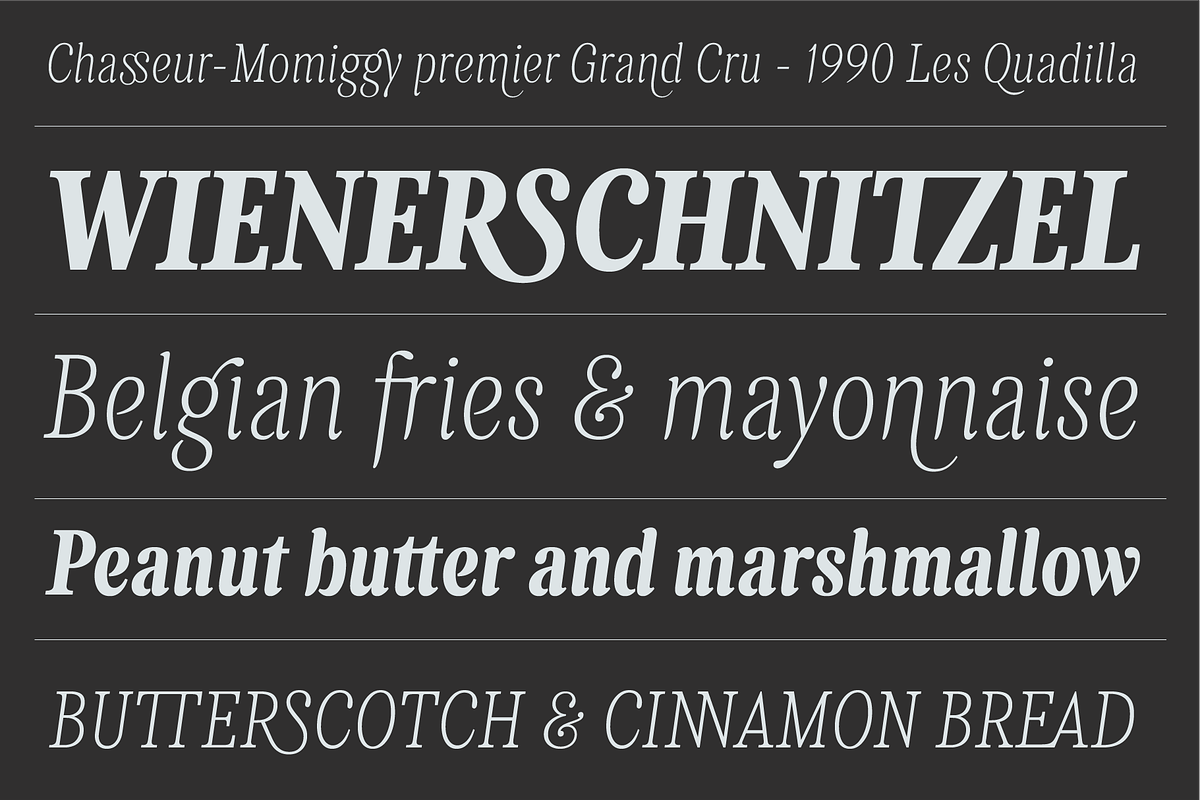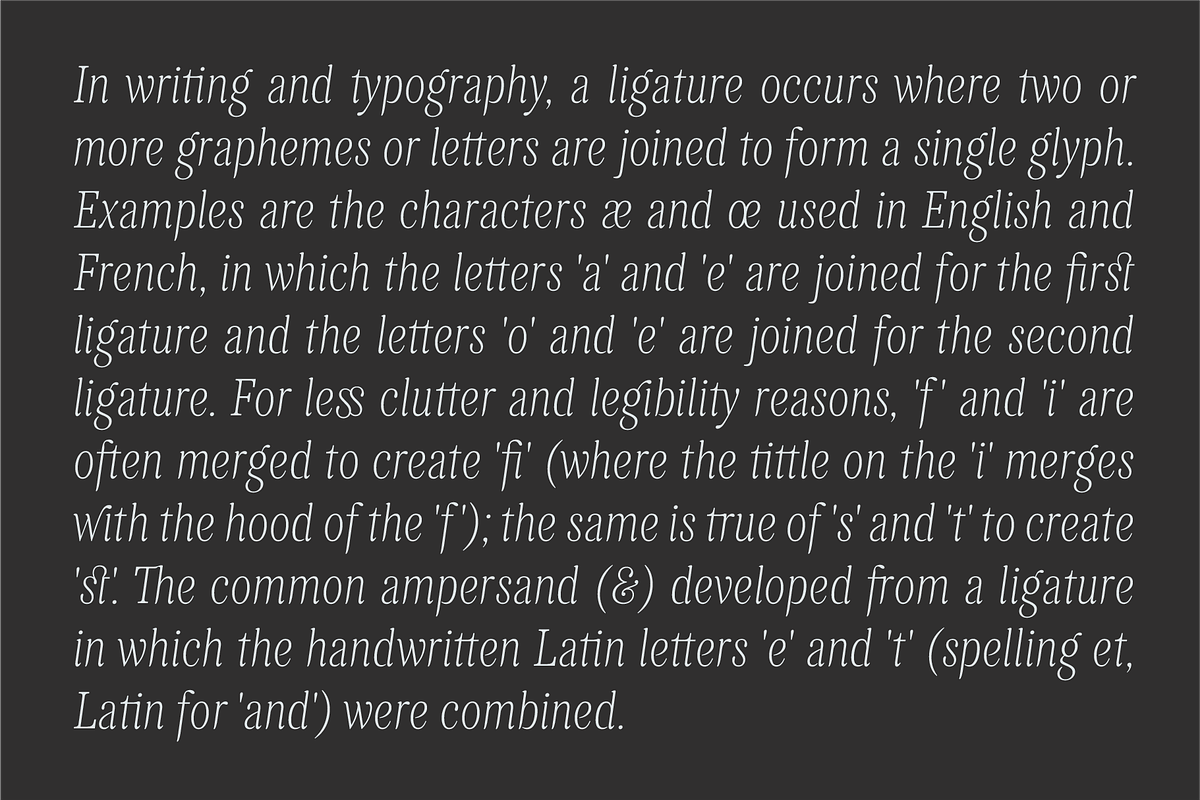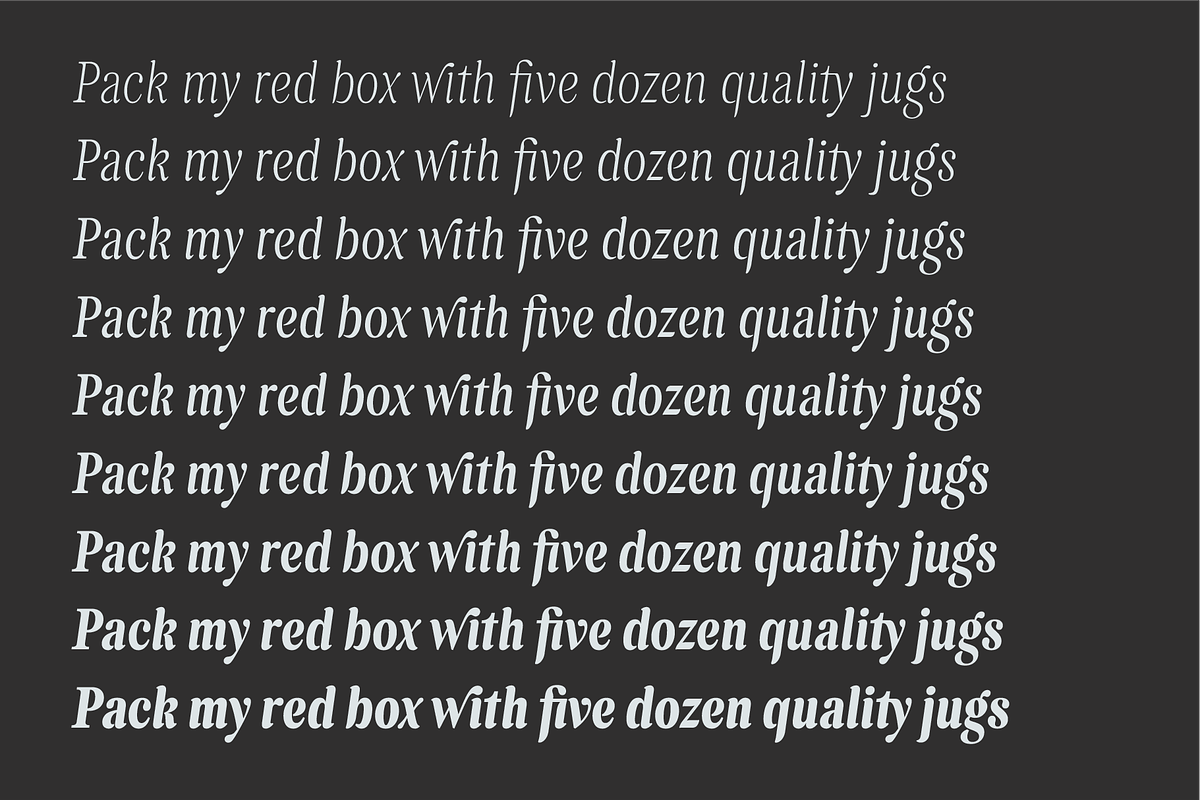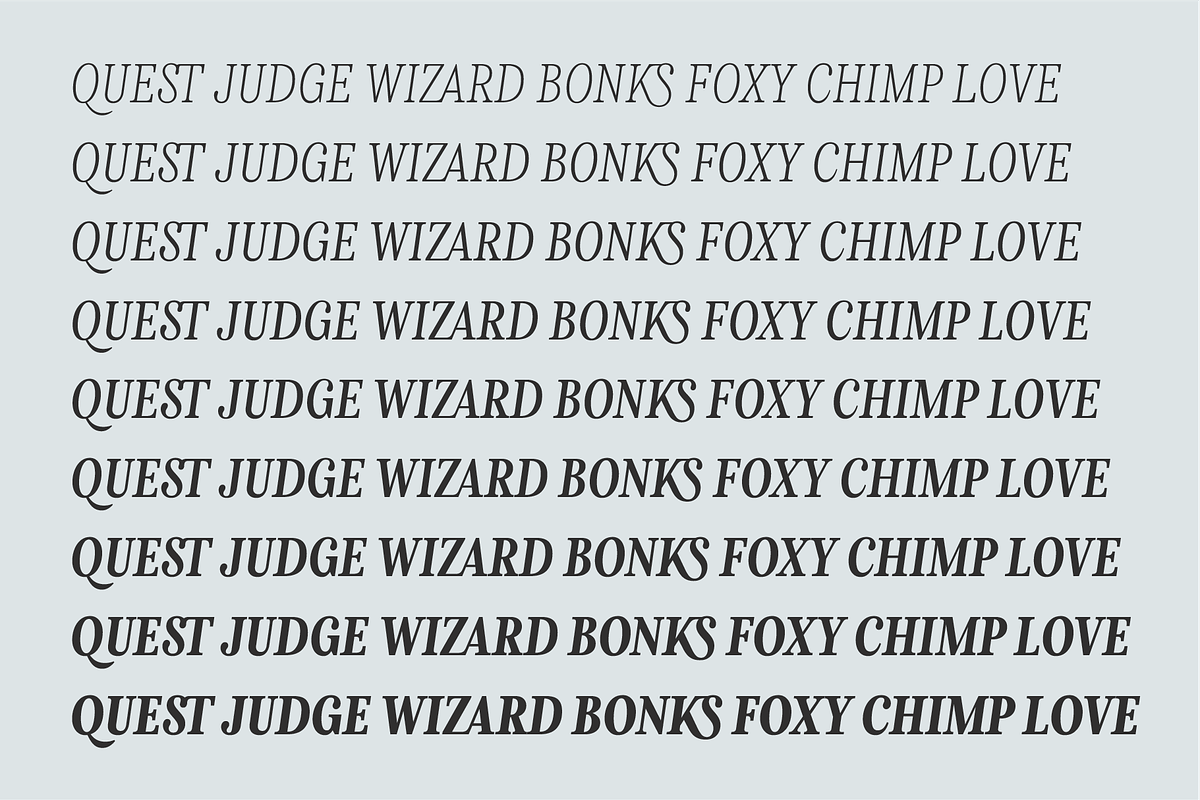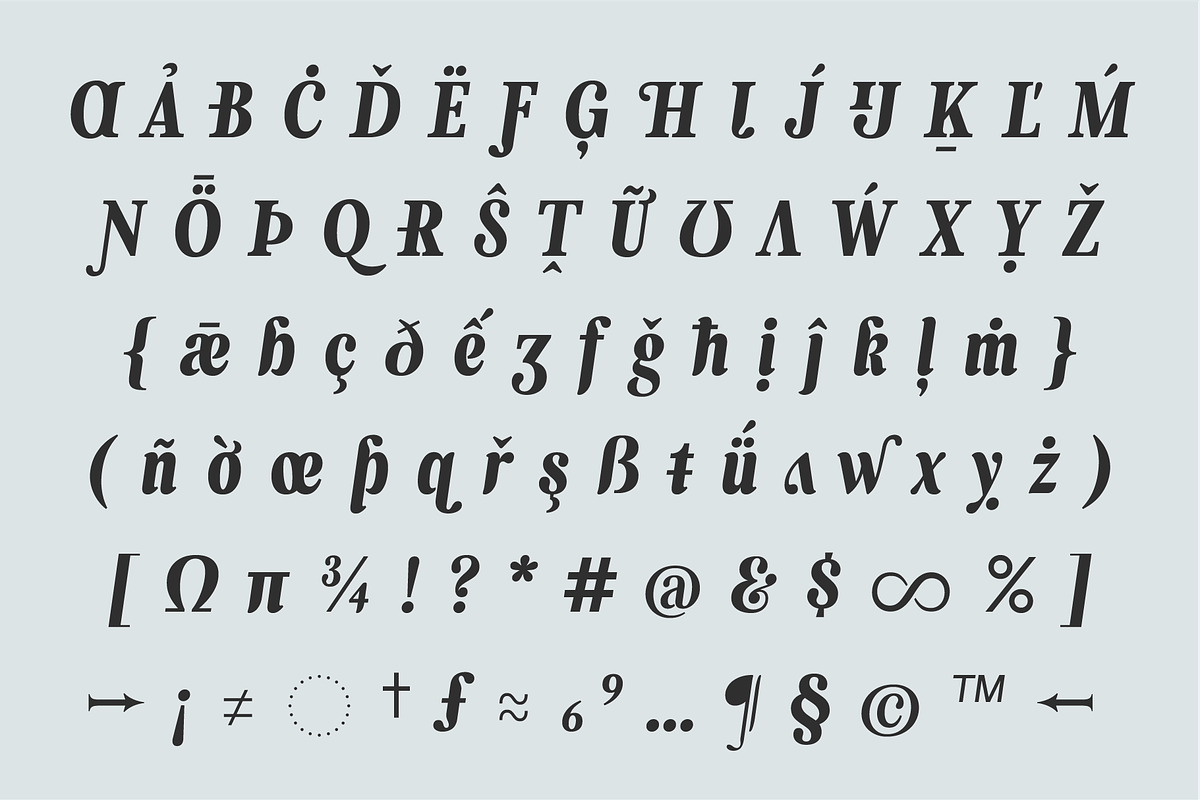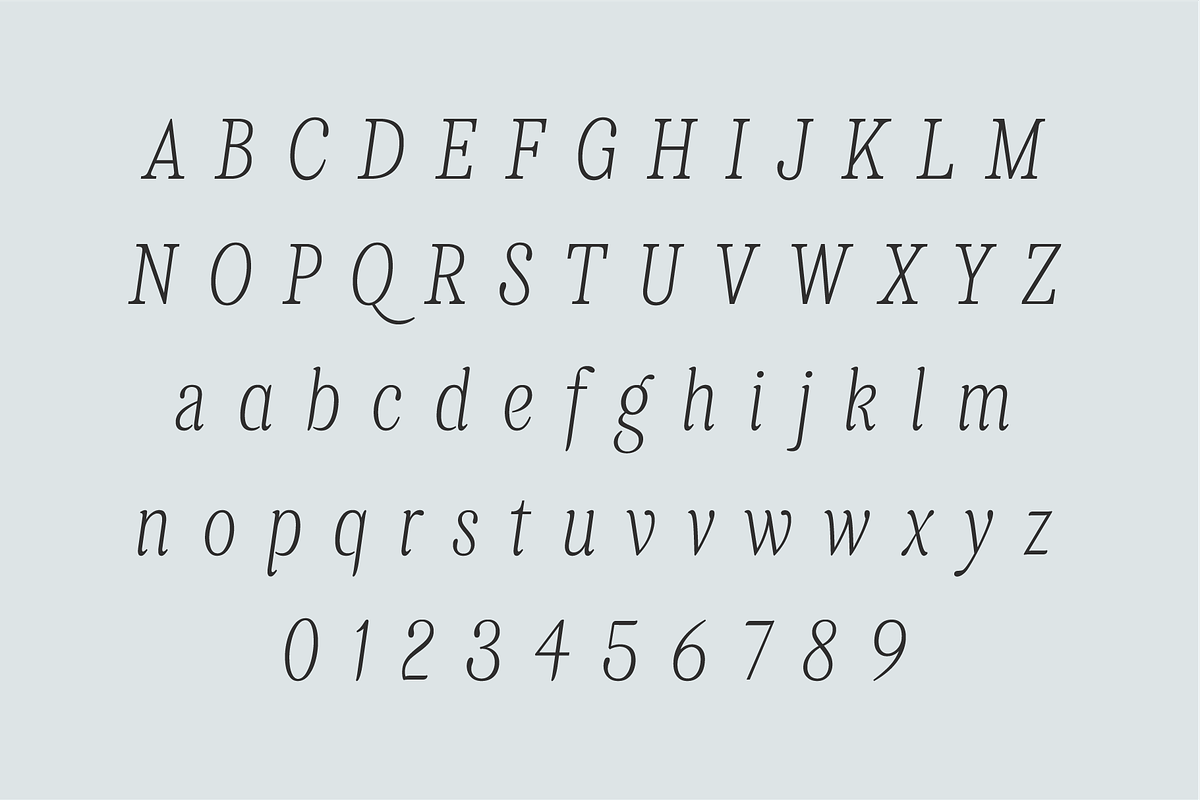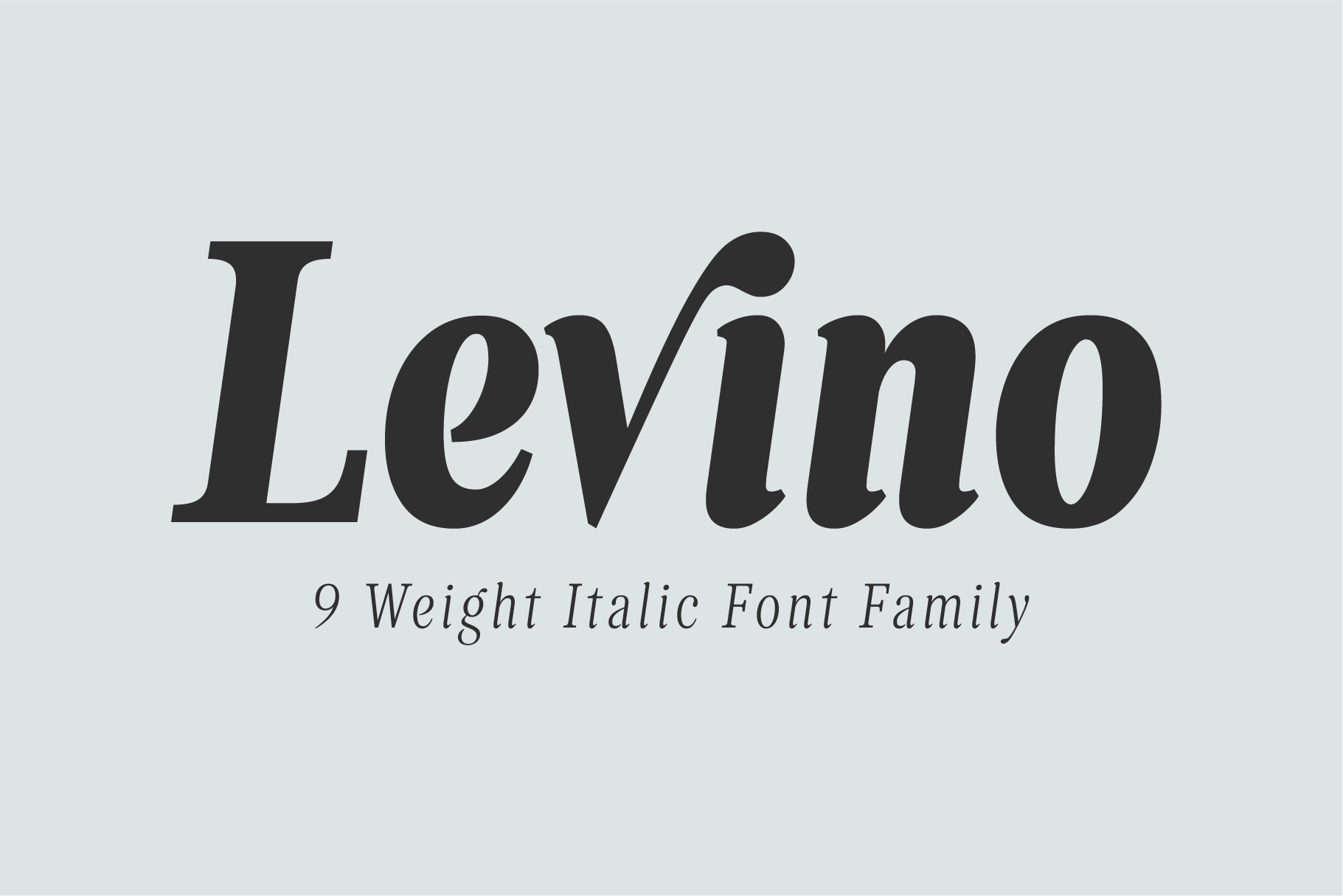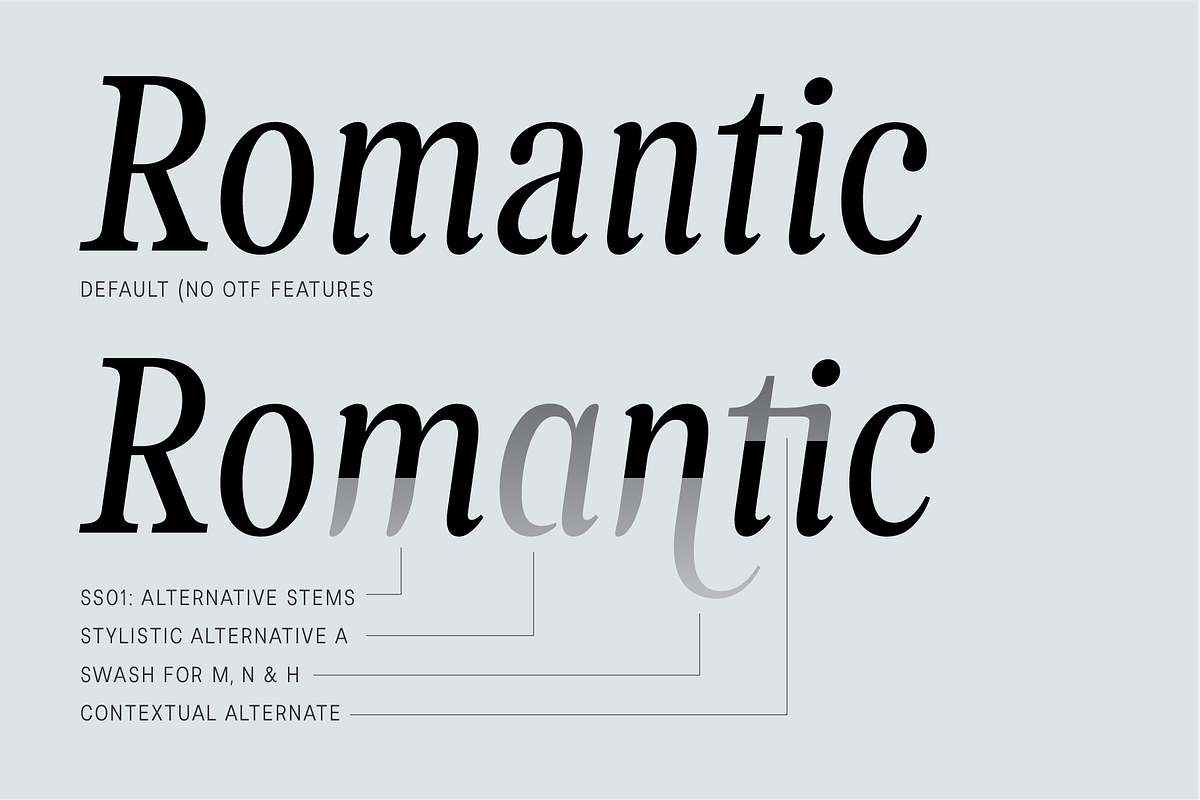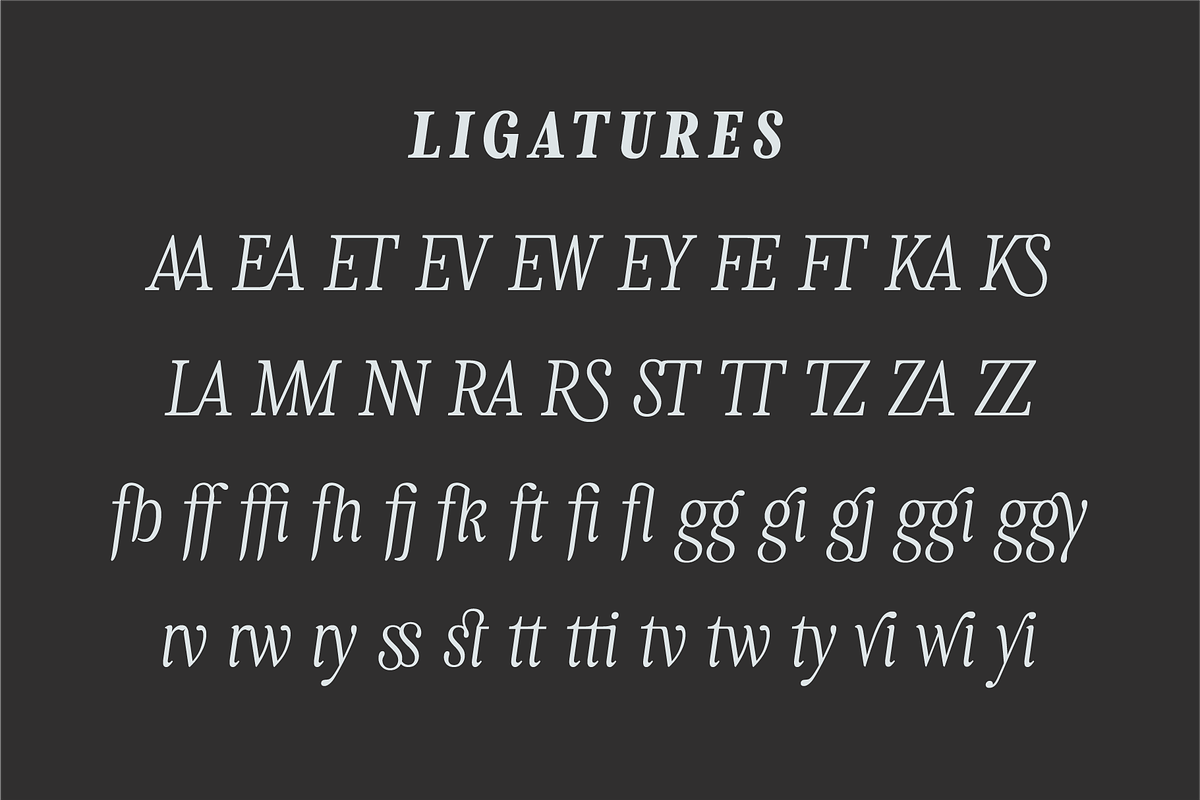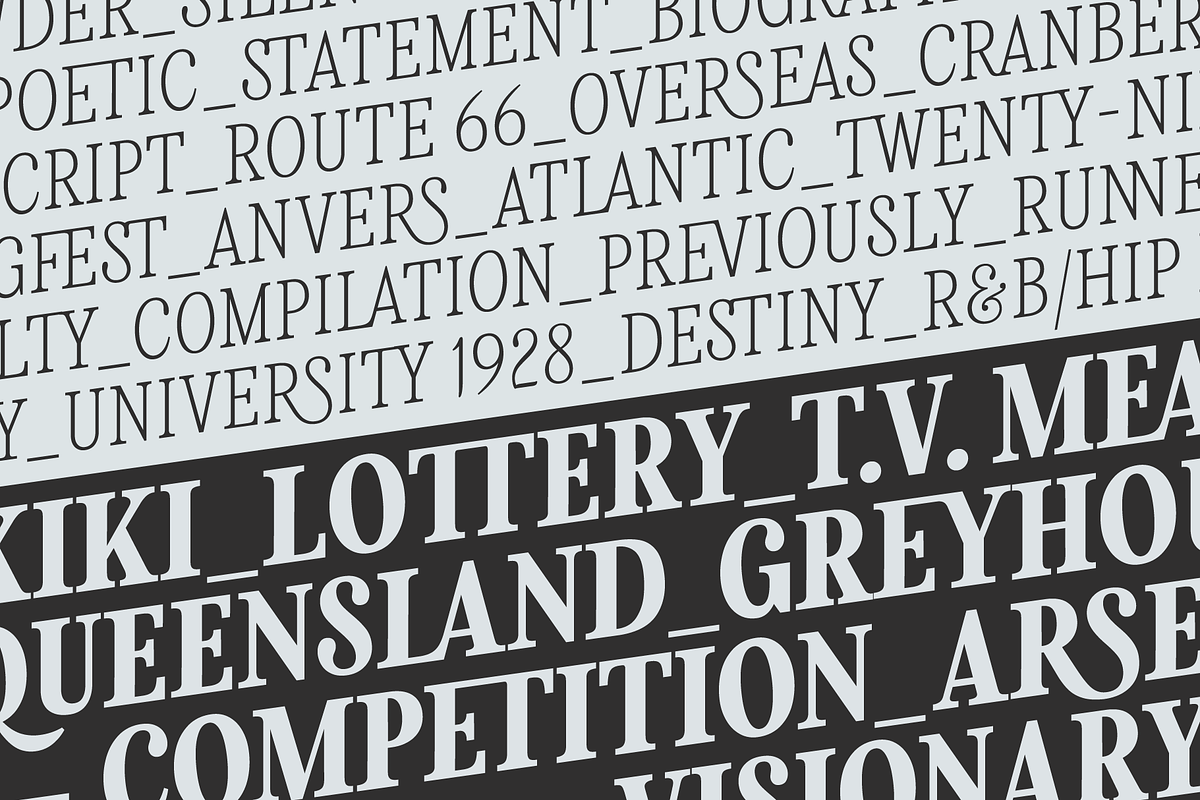
Levino Font Family
Levino is an italic font family which comes in 9 weights. The light weights have an elegant look, the middle weights are perfect for texts like menus, copywriting & product descriptions, where the bolder weights create an inviting, prominent statement. Regardless of its classic characteristics, we believe Levino can be a great addition to you modern designs.